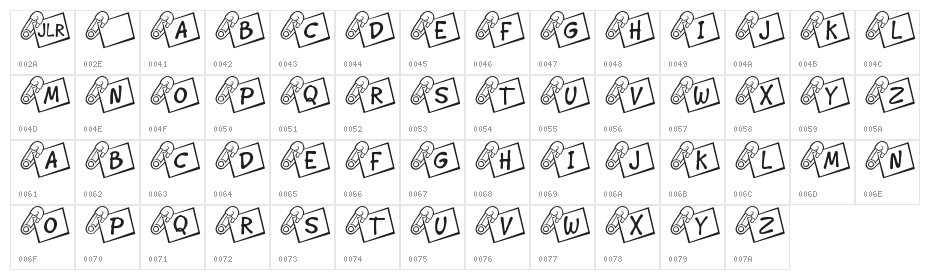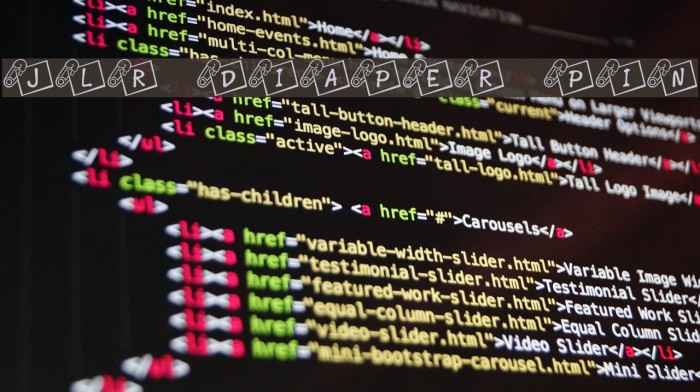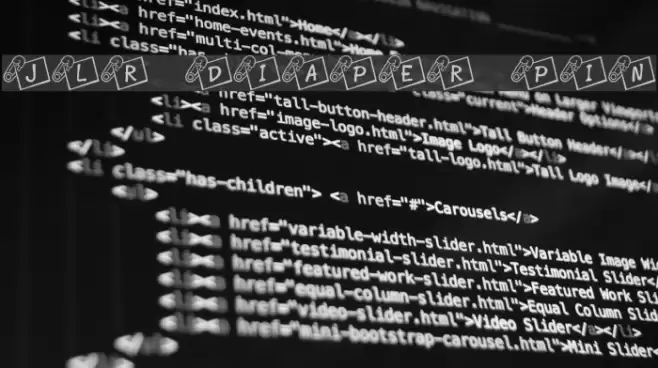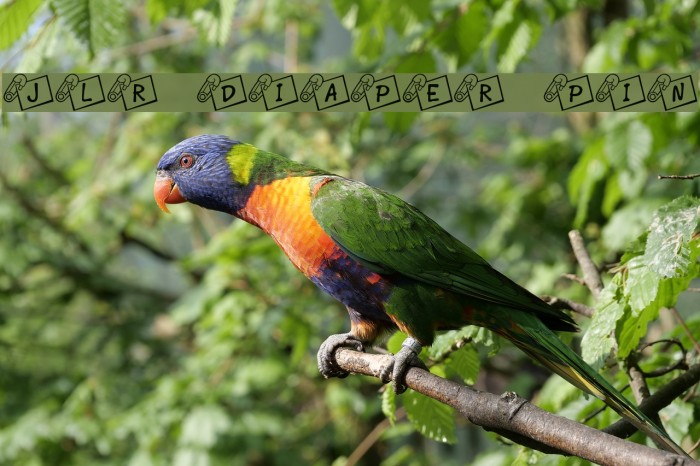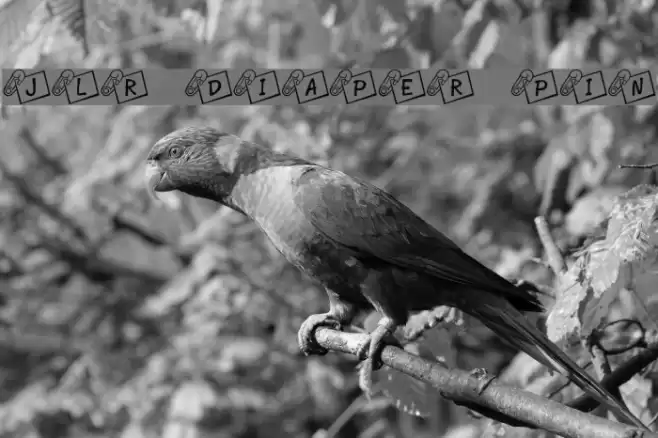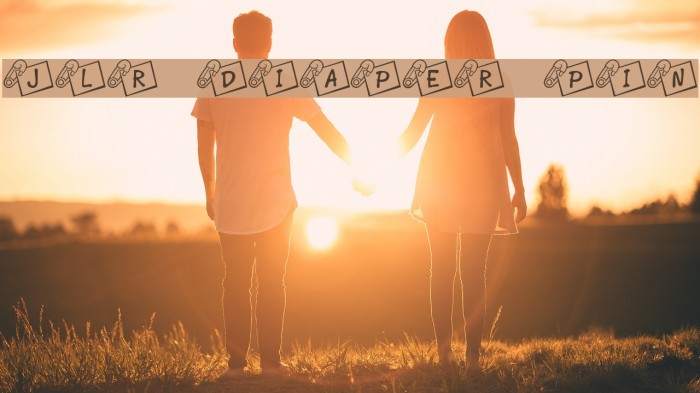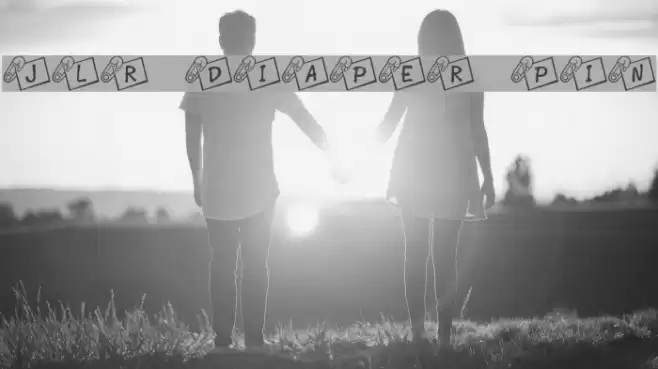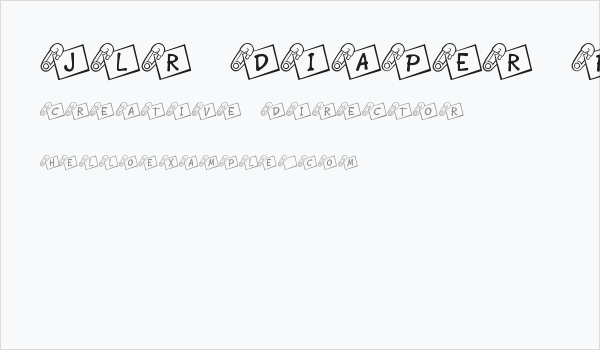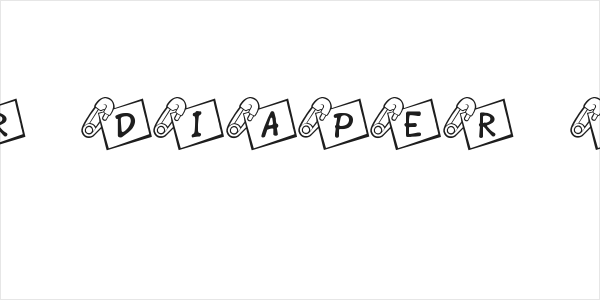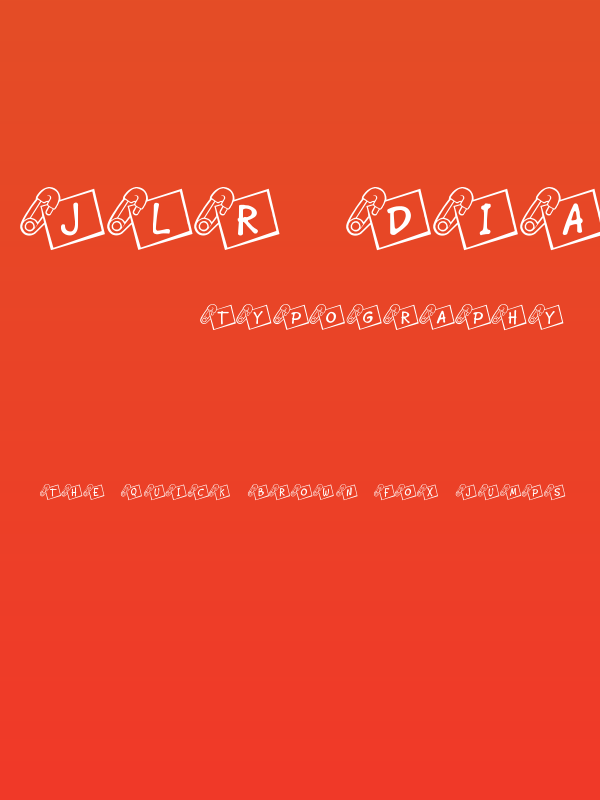
JLR Diaper Pin Font
JLR Diaper Pin Description
This playful and whimsical font features each letter encased within a small, square tag that is attached to a diaper pin. The design is reminiscent of baby-themed decorations, making it ideal for projects related to children or parenting. The letters are bold and clear, ensuring readability despite the decorative elements. The overall style is fun and light-hearted, with a touch of nostalgia due to the diaper pin motif. This font is perfect for adding a unique and charming touch to any design.
| Use Case | Headlines, Logos, Decorative Text |
| Proposed Projects | Perfect for baby shower invitations, children's book covers, nursery decor, and playful branding. |